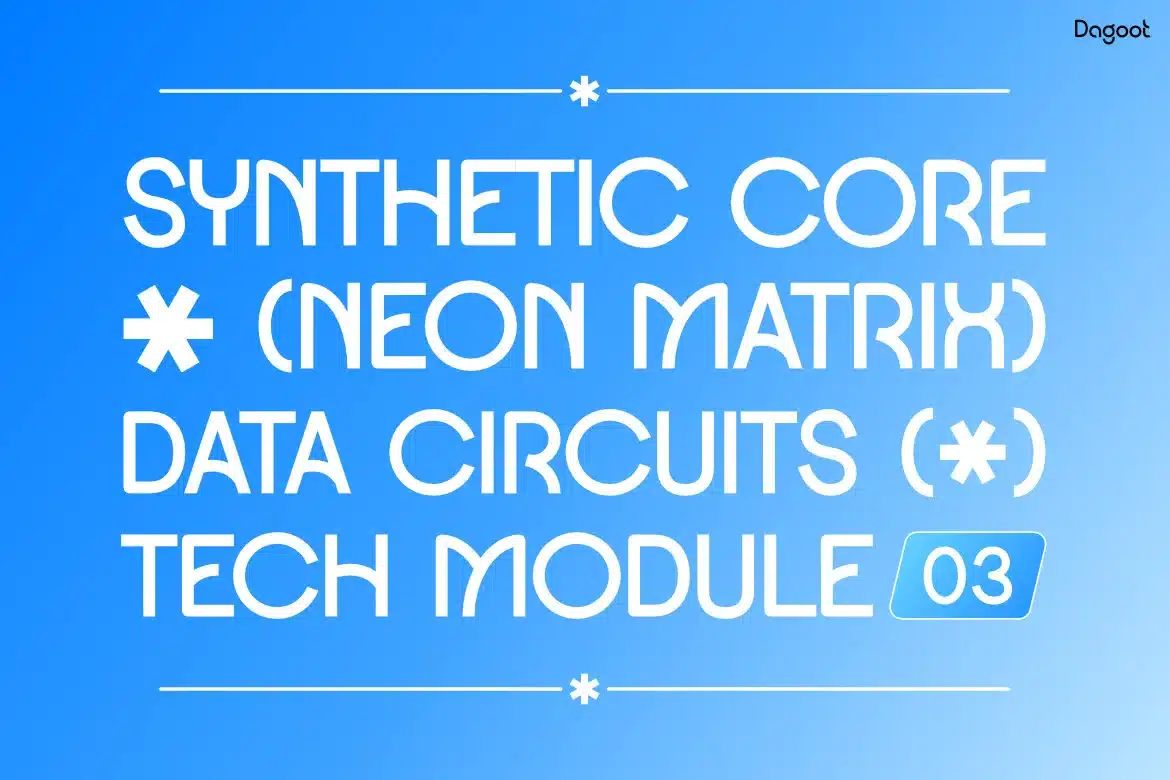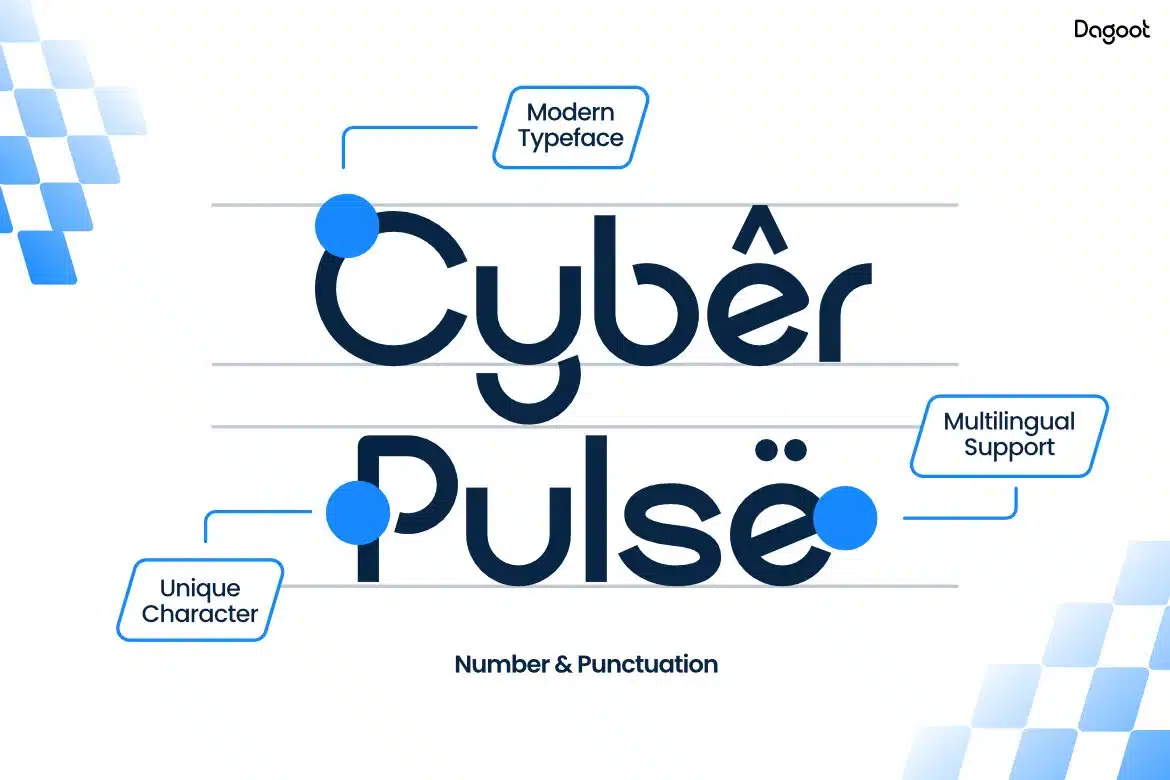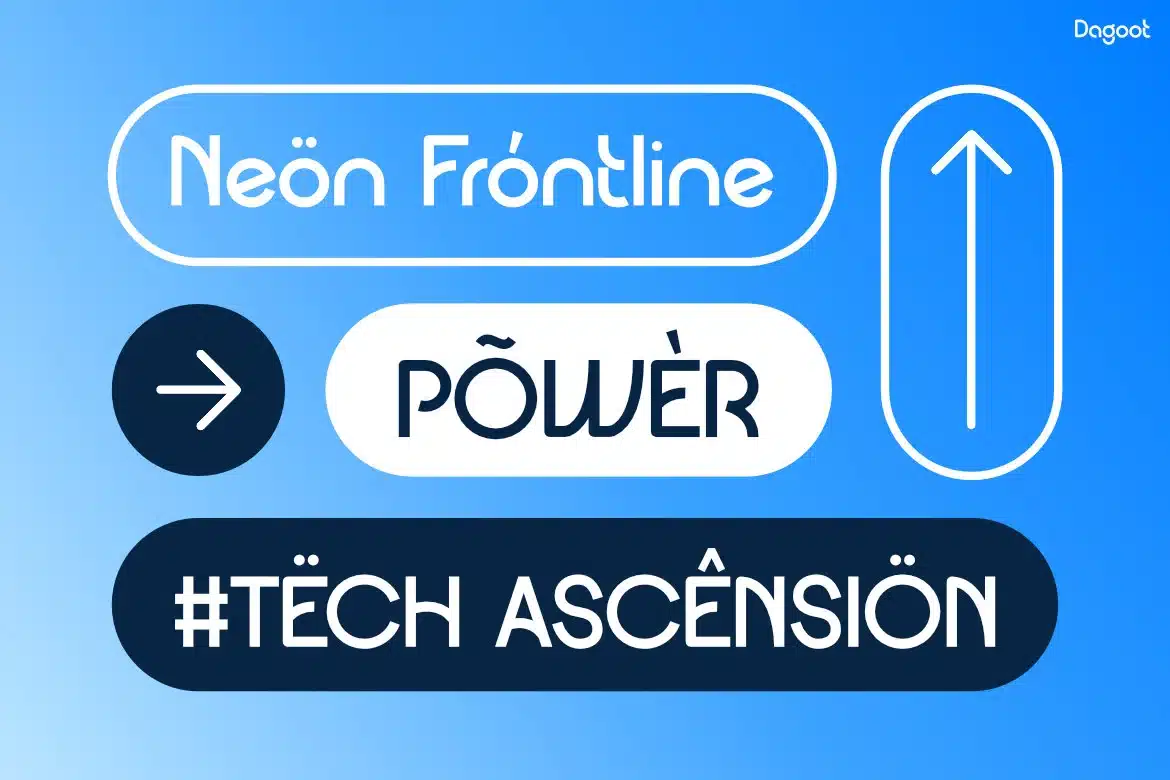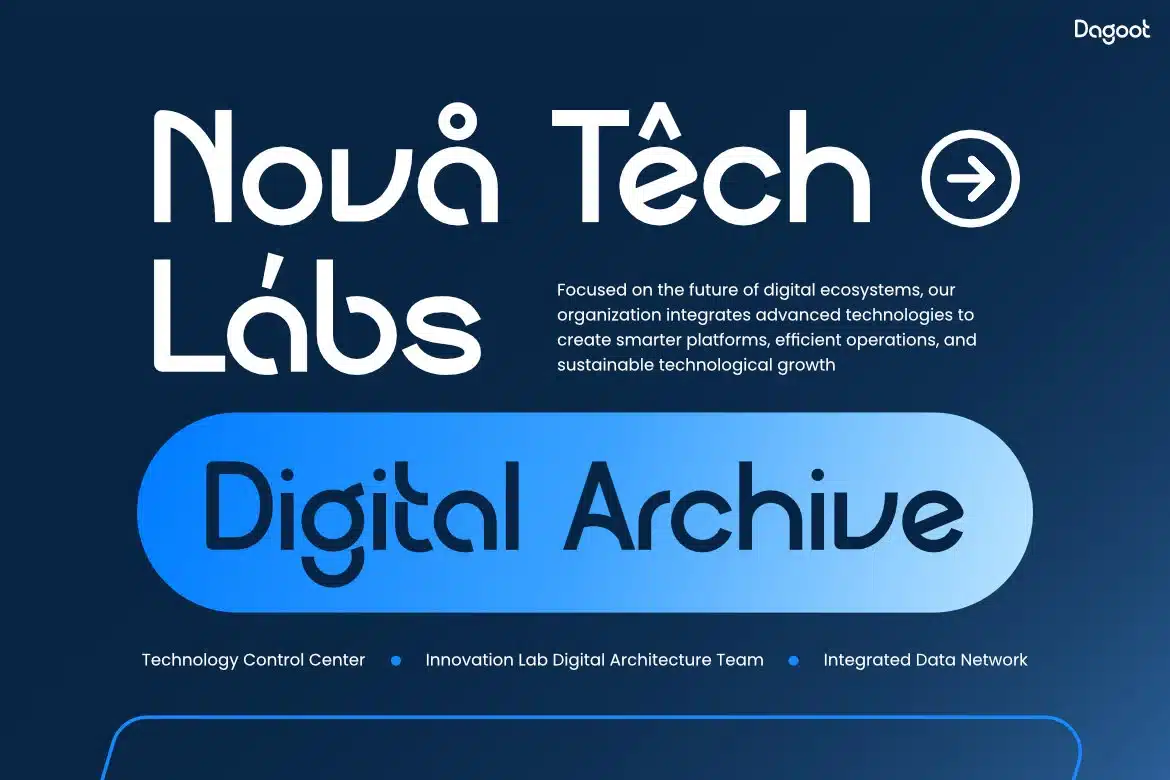
Dagoot – Modern Tech Display Font
Dagoot is a modern rounded tech display typeface designed for digital branding and futuristic visual systems, featuring clean geometric curves, smooth terminals, and balanced proportions that create a sleek and forward-thinking typographic style.
The typeface carries a modern and innovative vibe, making it perfect for technology-focused environments such as startup branding, digital products, app interfaces, and creative technology campaigns. Its rounded geometric structure gives the characters a friendly yet precise appearance, allowing text to feel both approachable and highly structured.
Dagoot performs especially well in headlines, UI titles, social media graphics, posters, and digital presentations. The shapes feel smooth and futuristic while remaining readable and organized across modern layouts. With multilingual support for 67 languages, Dagoot helps designers build consistent branding for international technology projects and digital platforms.
Dagoot is designed for designers and creative teams building modern digital experiences. Whether used for app UI headers, tech branding, gaming interfaces, digital posters, or startup presentations, this typeface delivers a clear and futuristic voice. Its rounded geometry gives layouts a clean and contemporary personality, helping brands communicate innovation and clarity. From technology companies and SaaS products to esports graphics and modern editorial layouts, Dagoot helps create typography that feels structured, confident, and visually engaging.
Key Features :
Modern Tech Geometry
- Clean curves and geometric construction create a futuristic and structured visual tone.
Rounded Contemporary Letterforms
- Smooth terminals provide a friendly and approachable digital aesthetic.
Ideal for Digital Design
- Perfect for app UI, gaming graphics, technology branding, digital posters, and startup visuals.
Strong Headline Presence
- Designed to perform clearly in large titles and bold typographic compositions.
- Supports 67 languages, making it suitable for global branding and digital products.
Balanced Layout Flow
- Carefully spaced letterforms maintain clarity and harmony across modern design systems.